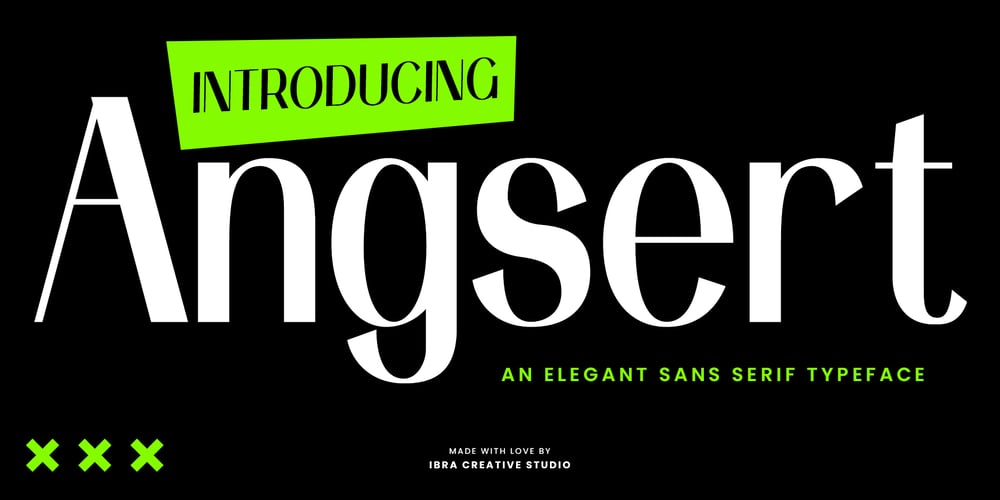
Angsert Font Family was designed by Roisatul Azizah and published by IbraCreative. Angsert contains 1 styles and family package options. Angsert – An Elegant Sans Serif TypefaceAngsert, an elegant sans serif typeface, exudes sophistication and modernity with its clean lines and balanced proportions. Each letter in Angsert is meticulously crafted to convey a sense of timeless beauty and refined simplicity. Ideal for a wide range of design applications, from branding to editorial layouts, Angsert offers versatility and legibility while maintaining a sense of understated elegance. Whether used for headlines, body text, or signage, this typeface effortlessly captures attention and adds a touch of sophistication to any project, making it a must-have choice for designers seeking to elevate their creations with a touch of class and style.Angsert is perfect for branding projects, logo, wedding designs, social media posts, advertisements, product packaging, product designs, label, photography, watermark, invitation, stationery, game, fashion and any projects.Fonts include multilingual support for; Afrikaans, Albanian, Czech, Danish, Dutch, English, Estonian, Finnish, French, German, Hungarian, Italian, Latvian, Lithuanian, Norwegian, Polish, Portuguese, Slovak, Slovenian, Spanish, Swedish.